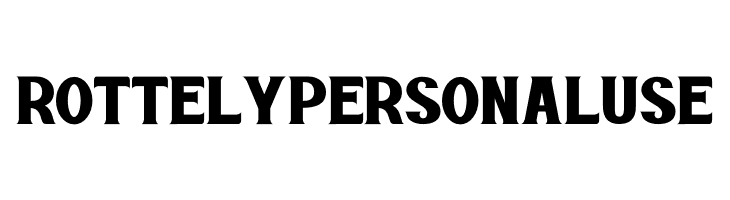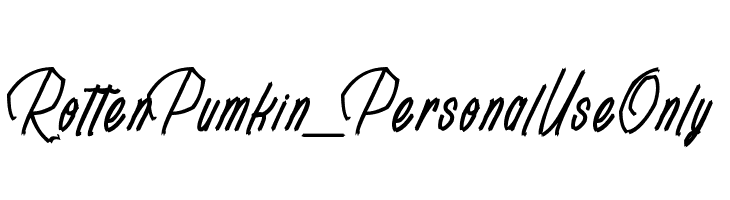
A jagged, hand-drawn font with a spooky, energetic style.
A playful, bold font with rounded, whimsical letterforms.
A playful, whimsical font with rounded, flowing letterforms and consistent stroke width.
A sophisticated and elegant font with high contrast and modern flair.
A bold, elegant script font with flowing, cursive letterforms.
A graceful and flowing handwritten font with thin, delicate strokes.
A playful handwritten font with fluid strokes and a casual style.
A stylish, handwritten font with elegant, flowing lines and a modern touch.
A modern, geometric font with tall, narrow uppercase letters and balanced lowercase characters.
A modern, elegant handwritten font with fluid, cursive strokes.